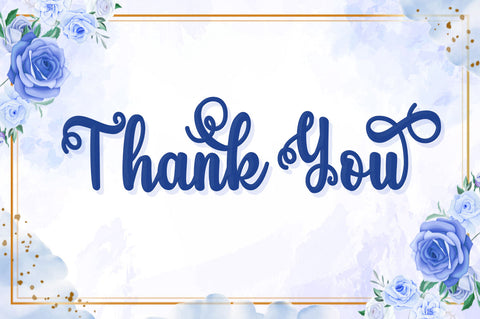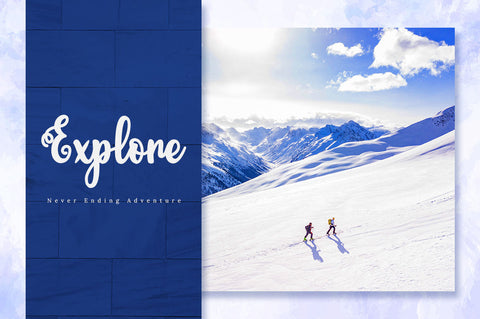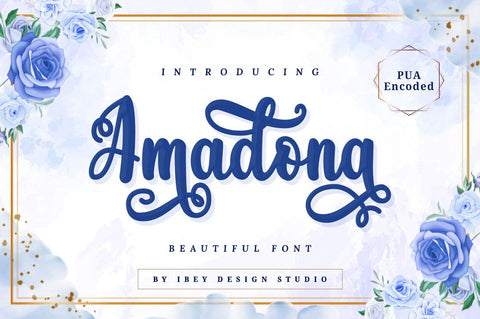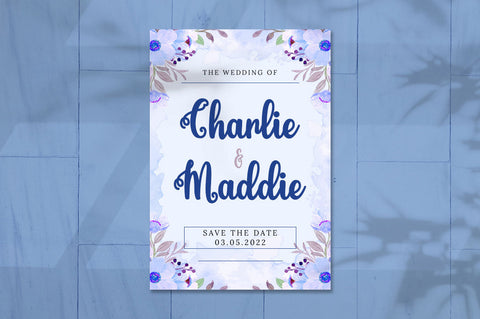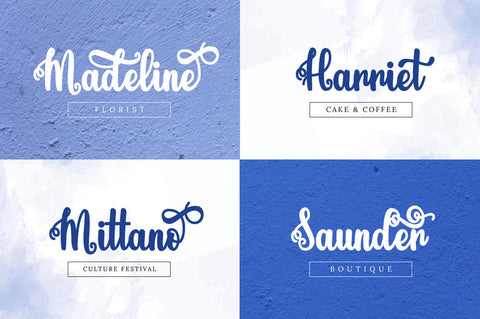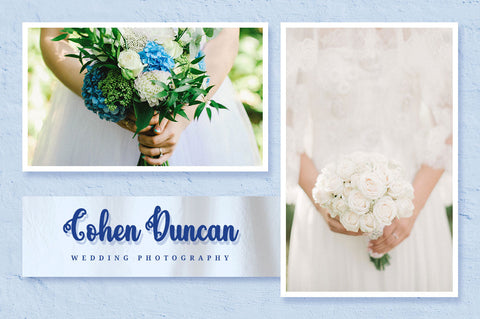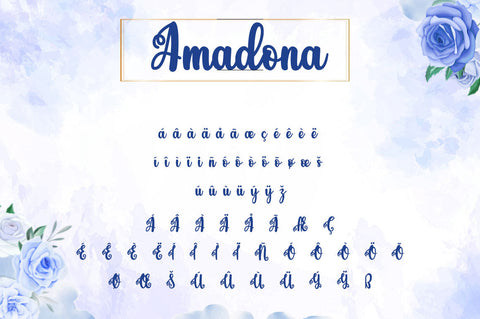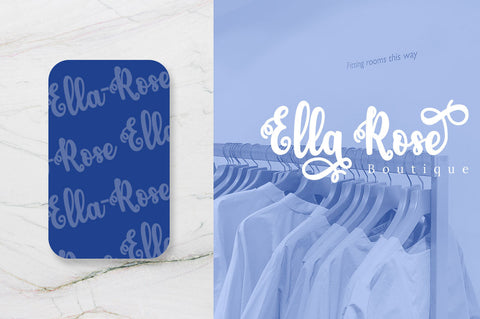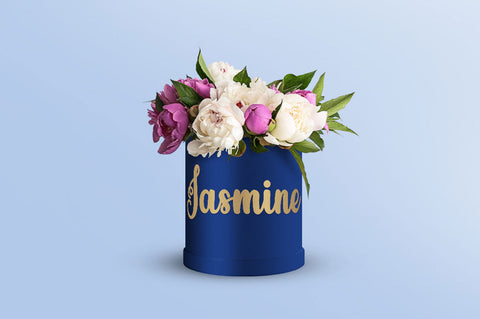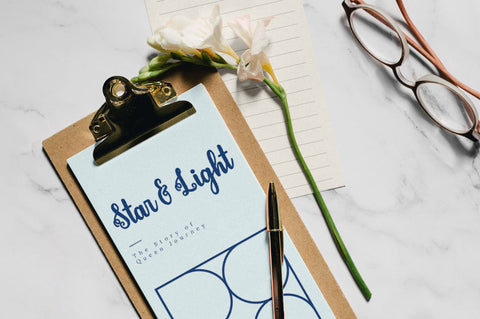
Amadona - Beautiful Font
Amadona Beautiful Font is a beautiful font, perfectly suitable for romantic designs such as invitations or souvenirs. It’s the ideal font for making any design idea stand out.
Amadona Beautiful Font is PUA encoded which means you can access all of the glyphs and swashes with ease!